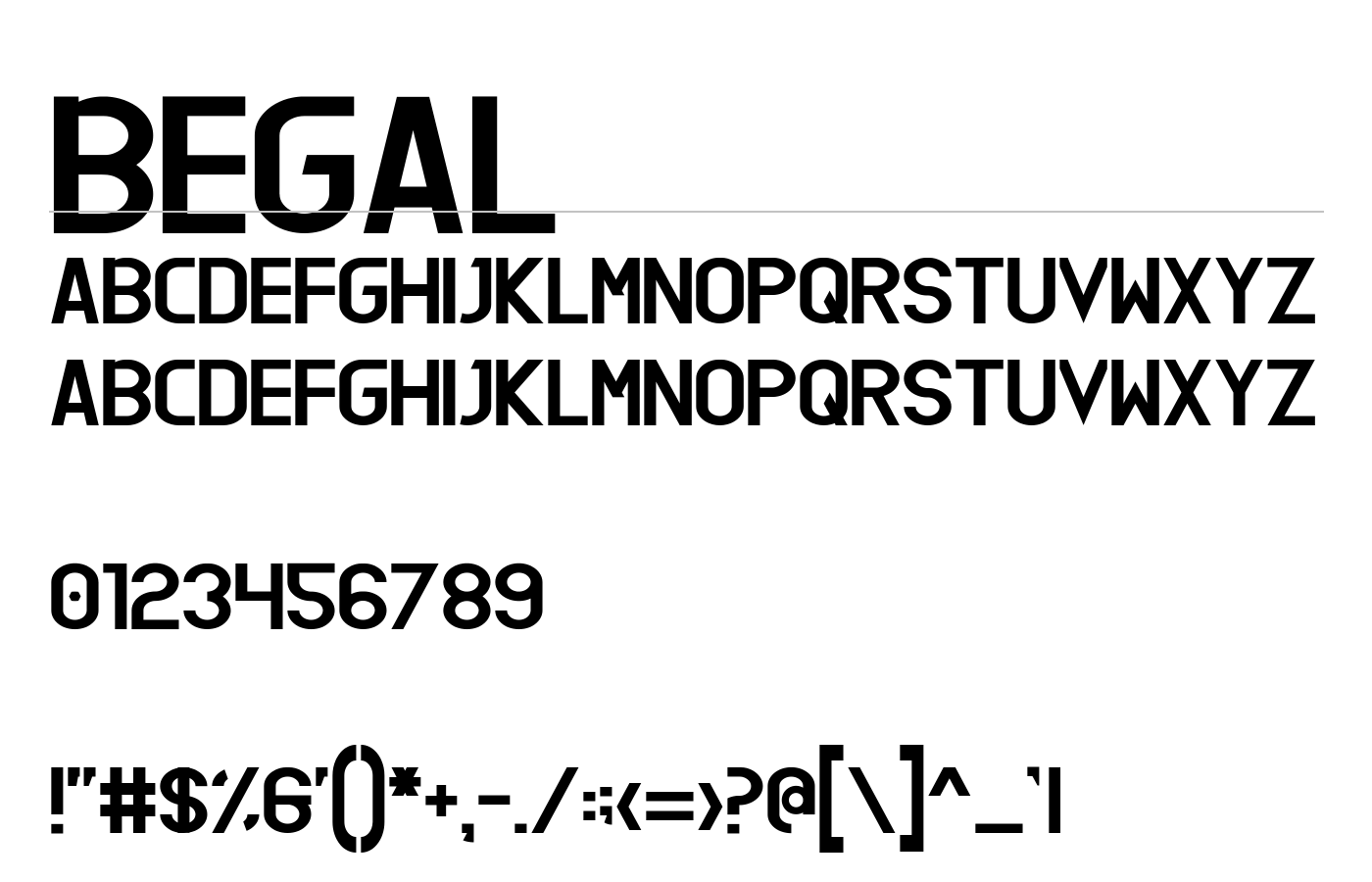
Begal is a bold, condensed sans-serif font with a modern, geometric style that stands out due to its strong, clean lines and distinctive letter shapes. Its uniform stroke weight and high x-height make it highly legible and impactful, ideal for headlines, branding, and editorial design where a confident, contemporary look is desired. This font works well for projects aiming to convey strength and modernity with a sleek, urban edge.
Begal Font
About Begal Font
| Designer | Danur Sambogo |